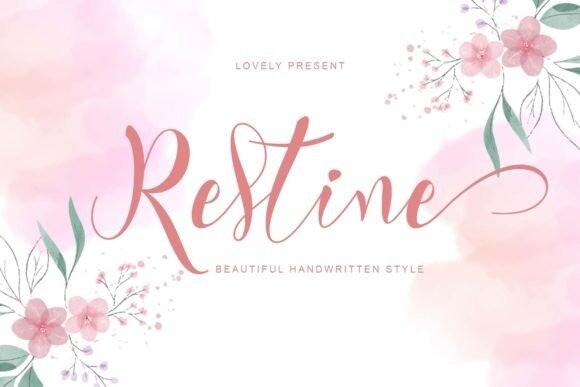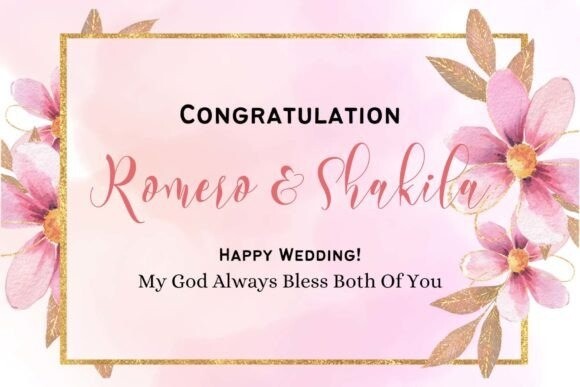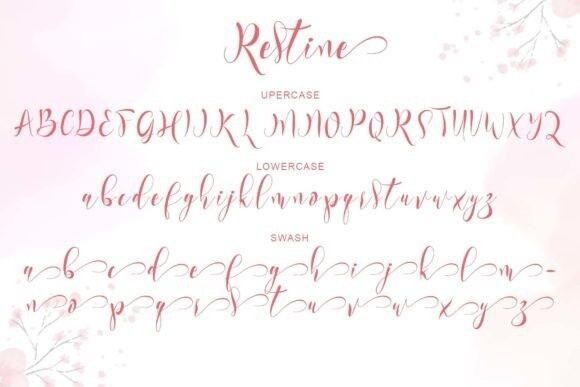
Restine Font
Restine Font is an elegant and beautiful handwritten font. This font is equipped with uppercase, lowercase, ligatures, swash, titling, numerals, punctuation, and multilingual support. Very suitable for weddings, Christmas, engagements, posters, stickers, banners, branding, and others.